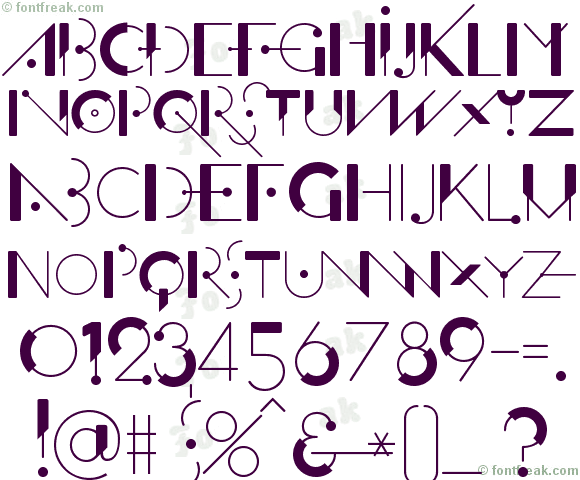
Offfensive Behaviour
About Offfensive Behaviour
Offfensive Behaviour is a distinctive display font crafted by kmzero font foundry, known for its eye-catching and unconventional design. This font falls into the decorative category, featuring a unique blend of bold strokes and playful elements that immediately draw attention. The characters exhibit a medium stroke weight with a slight contrast, giving them a sense of dynamism while maintaining legibility. The spacing is thoughtfully designed, allowing for an airy feel that enhances readability, even in larger sizes. Decorative elements, such as circular accents and quirky terminations, provide a whimsical touch that sets this font apart.
This font is ideal for a variety of creative applications. Designers can leverage Offfensive Behaviour for movie posters, where its bold character can captivate audiences and convey a sense of excitement. It’s also perfect for restaurant menus, adding a unique flair that can enhance the dining experience. Additionally, the font can be used effectively in branding materials, such as logos and promotional flyers, where a distinctive visual identity is essential. Content creators looking to make a statement in their social media graphics will find this font a valuable asset as well.
Targeting graphic designers, small business owners, and content creators, Offfensive Behaviour invites creativity and bold expression. Its unique aesthetic will resonate with those seeking to stand out in a crowded marketplace.
What truly makes Offfensive Behaviour special is its blend of playful design and practicality. The font captures attention without overwhelming the viewer, striking a perfect balance between creativity and clarity. For anyone looking to add a unique touch to their projects, the Offfensive Behaviour font free download is an excellent choice that promises to inspire and engage.